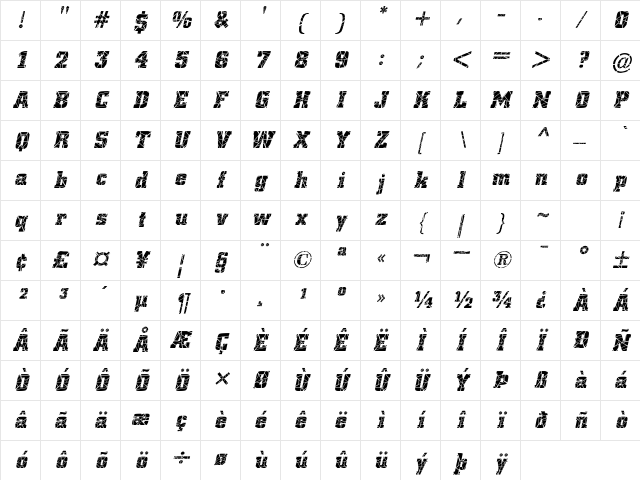
Borghs-Cracked is a composed and adaptable typeface that performs quietly and consistently across a wide range of design contexts. The slanted form adds forward momentum and visual energy.
Pro Tip: Use Borghs-Cracked for emphasis, pull quotes, and subheadings where its slanted energy can add rhythm to the layout.